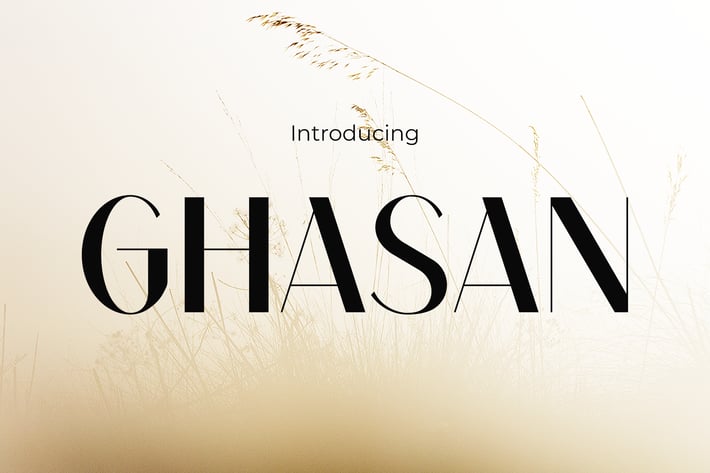
Ghasan Modern Elegance Font
Ghasan
A high-contrast modern display font for fashion branding with sharp terminals and elegant rhythm.
GHASAN introduces a sleek, high-fashion tone with its contrasted vertical strokes, elongated proportions, and minimalist elegance. The font’s energy is bold yet graceful—perfectly calibrated for fashion campaigns, editorial layouts, and packaging that demands attention. GHASAN pairs style and authority with confident structure and refined curves that reflect a runway-ready aesthetic.
If you're designing for fashion, luxury lifestyle, or minimalist beauty products, GHASAN was made for you. Whether it's an eye-catching storefront logo, an elegant magazine headline, or a product box for skincare, this typeface captures attention while maintaining refined professionalism. It elevates designs with timeless poise and a dash of edge—ideal for modern fashion brands, startups, and high-end products.
Key Features :
Style & Structure
- Elegant vertical proportions with a sleek modern silhouette
- Thin strokes combined with geometric curves for balance
Market-Ready Impact
- Designed for fashion, magazine, product packaging, and social media visual branding
- Works well in both large headlines and logo forms
Aesthetic Versatility
- High readability without compromising luxury aesthetics
- Excellent spacing for clean layouts in both print and digital